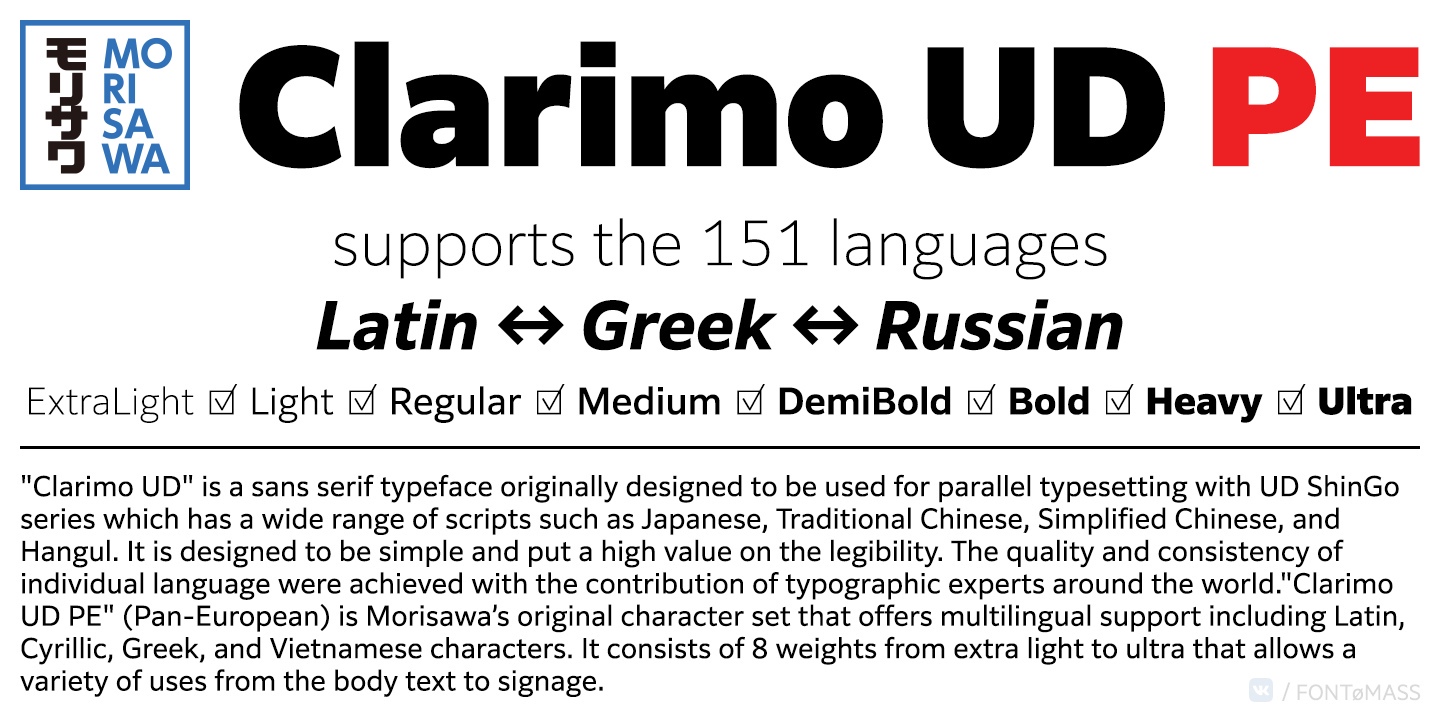
Clarimo UD PE Font
Clarimo UD PE Font is perfect for educational institution branding, public accessibility signage, inclusive design projects, corporate communication systems, healthcare facility wayfinding, government documentation, universal design applications, and barrier-free interface designs. This accessible typeface excels in applications where universal design principles and clear communication are essential for creating inclusive and comprehensible brand experiences that serve diverse audiences.
What makes Clarimo UD PE Font truly exciting is its exceptional embodiment of universal design excellence and accessibility standards that captures the essential principles of inclusive communication and barrier-free information design. The font features carefully optimized letterforms with enhanced legibility characteristics and universal design details that ensure clear readability for users with diverse visual abilities and reading requirements. Its inclusive personality and accessible character create an immediate sense of communication clarity and design responsibility that resonates with audiences seeking equitable access to information and universal usability solutions. The typeface's accessibility heritage and inclusive appeal make it perfect for brands wanting to convey social responsibility, clarity, and connection to the fundamental principles of universal design and accessible communication.
The Clarimo UD PE Font family includes comprehensive weight variations optimized for accessibility, complemented by enhanced legibility alternates and universal design elements. The font offers extensive character sets with accessibility symbols, clear distinction markers, and inclusive styling details that enhance its universal applications. Additional graphic elements including clarity indicators, accessibility motifs, inclusive patterns, and universal design ornaments provide designers with complete branding tools rooted in accessibility standards and inclusive design principles.